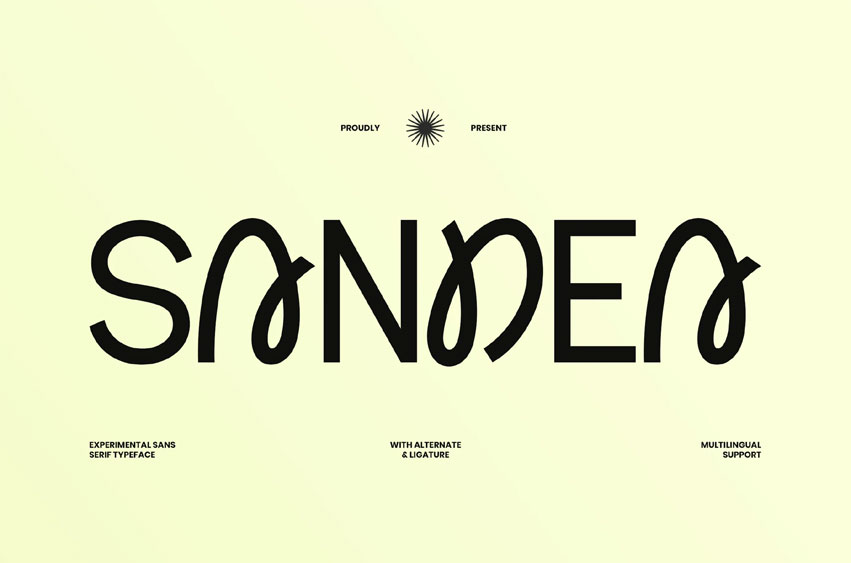
Sandea Font
Sandea Font is a modern sans serif font with a playful twist, blending clean geometric shapes and creative ligatures. Its fresh, distinctive look makes every design feel lively and unique. Perfect for fashion spreads, packaging, social media, and eye-catching branding — SANDEA brings a fun yet refined personality wherever it goes. Simple, stylish, and effortlessly modern.